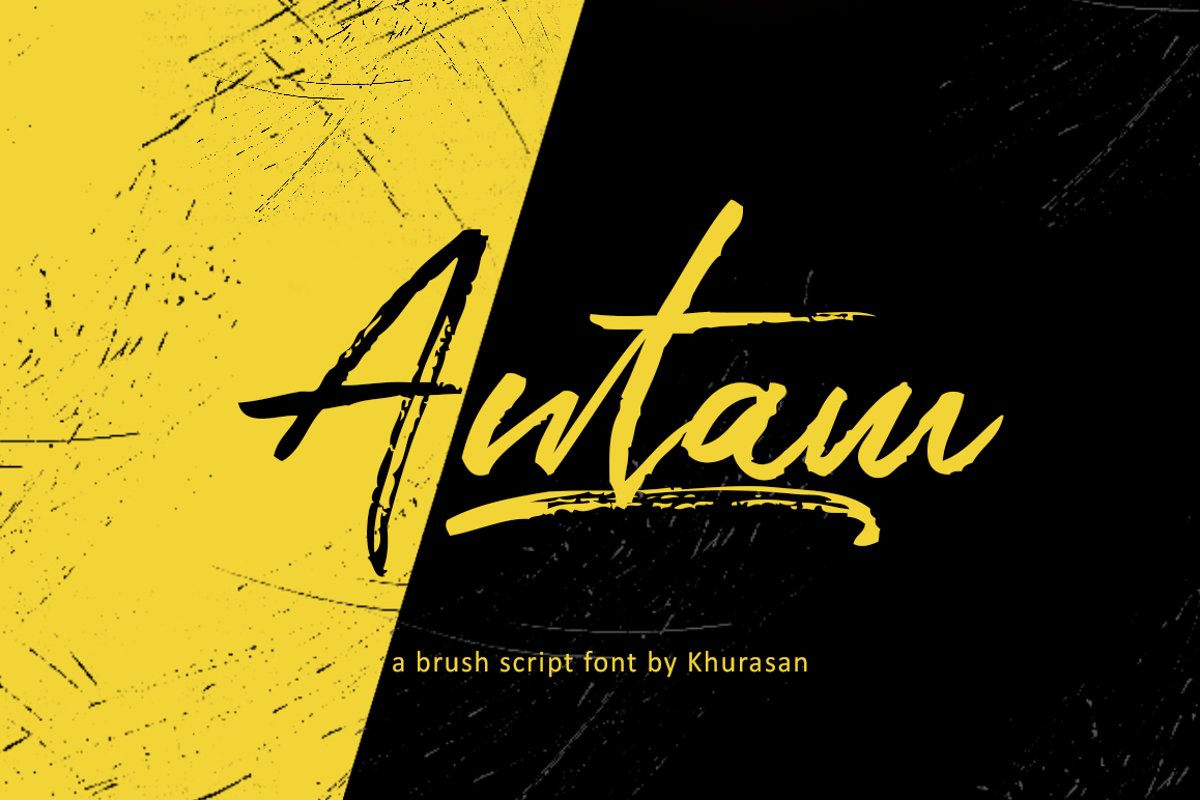
Antam Script
Antam
Antam is a fresh handwritten font brush, elegant and vintage feel character set. The Antam font includes a full set capital and lowercase letters, as well as multi-lingual support, currency figures, numerals, & punctuation.